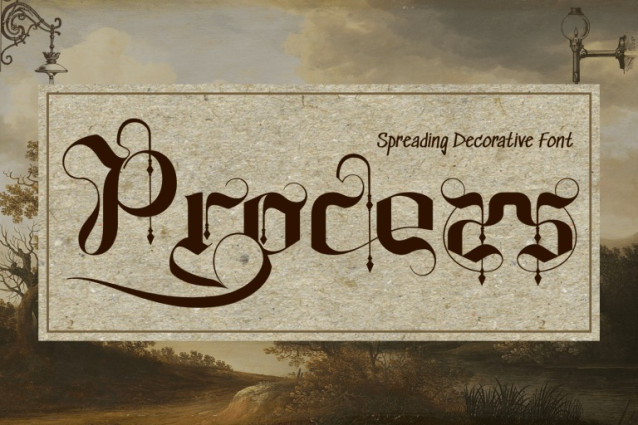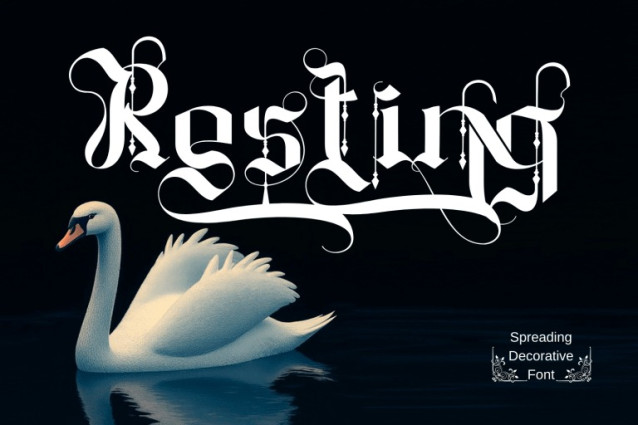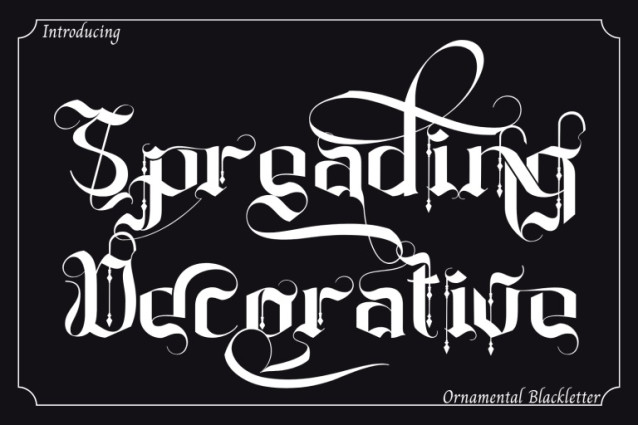
Spreading Decorative Font
Spreading Decorative Font – Blackletter Font – A Gothic Decorative Blackletter Font, a bold blackletter decorative font that merges gothic power with ornamental elegance. Each letterform is built with strong medieval-inspired strokes, enhanced by elaborate swashes, intricate flourishes, and jewel-like details that give it a truly unique character. Perfect for gothic-inspired logos, heavy metal posters, luxury packaging, book covers, fashion branding, and editorial titles, Spreading Decorative brings both strength and sophistication to your typography projects.
🔤Font Features:
Uppercase & Lowercase Letters
~100 Decorative Ligatures
Accented Characters for Multilingual Support
Ornamental alternates and swashes
🔤About 100 ligatures combined with Stylistic Alternates Font: